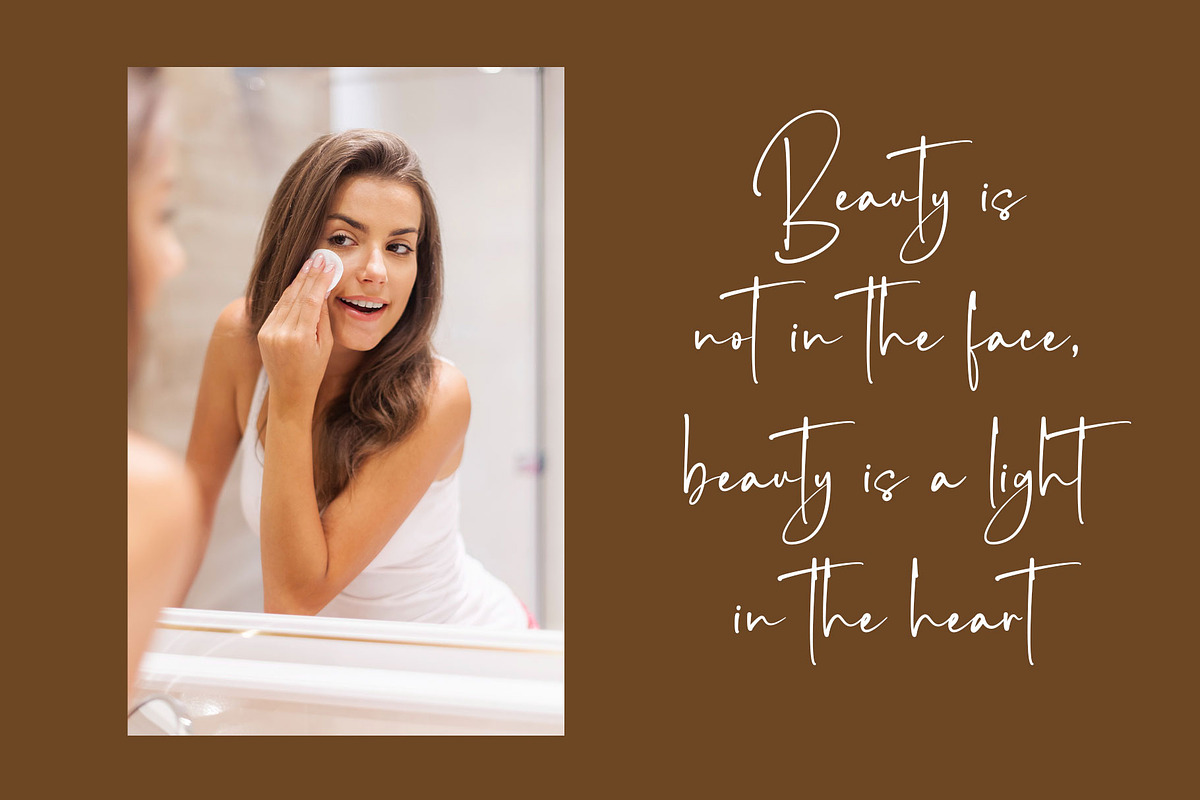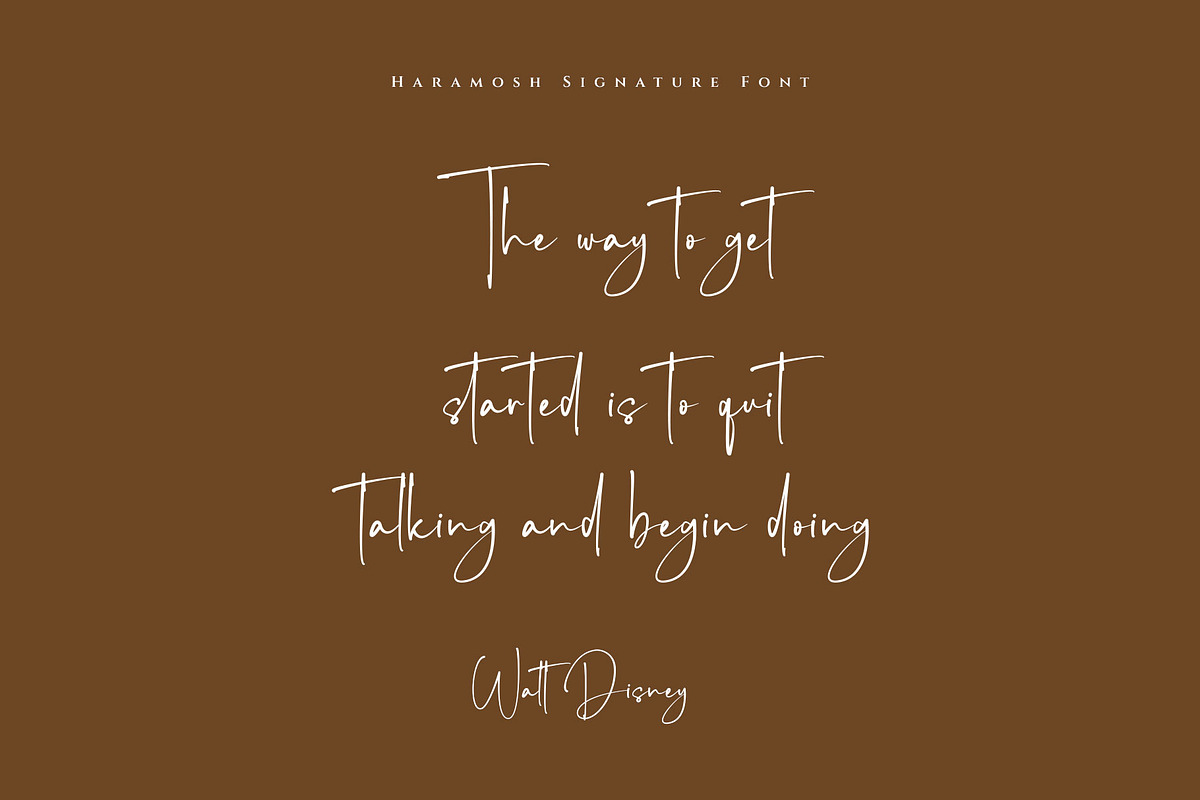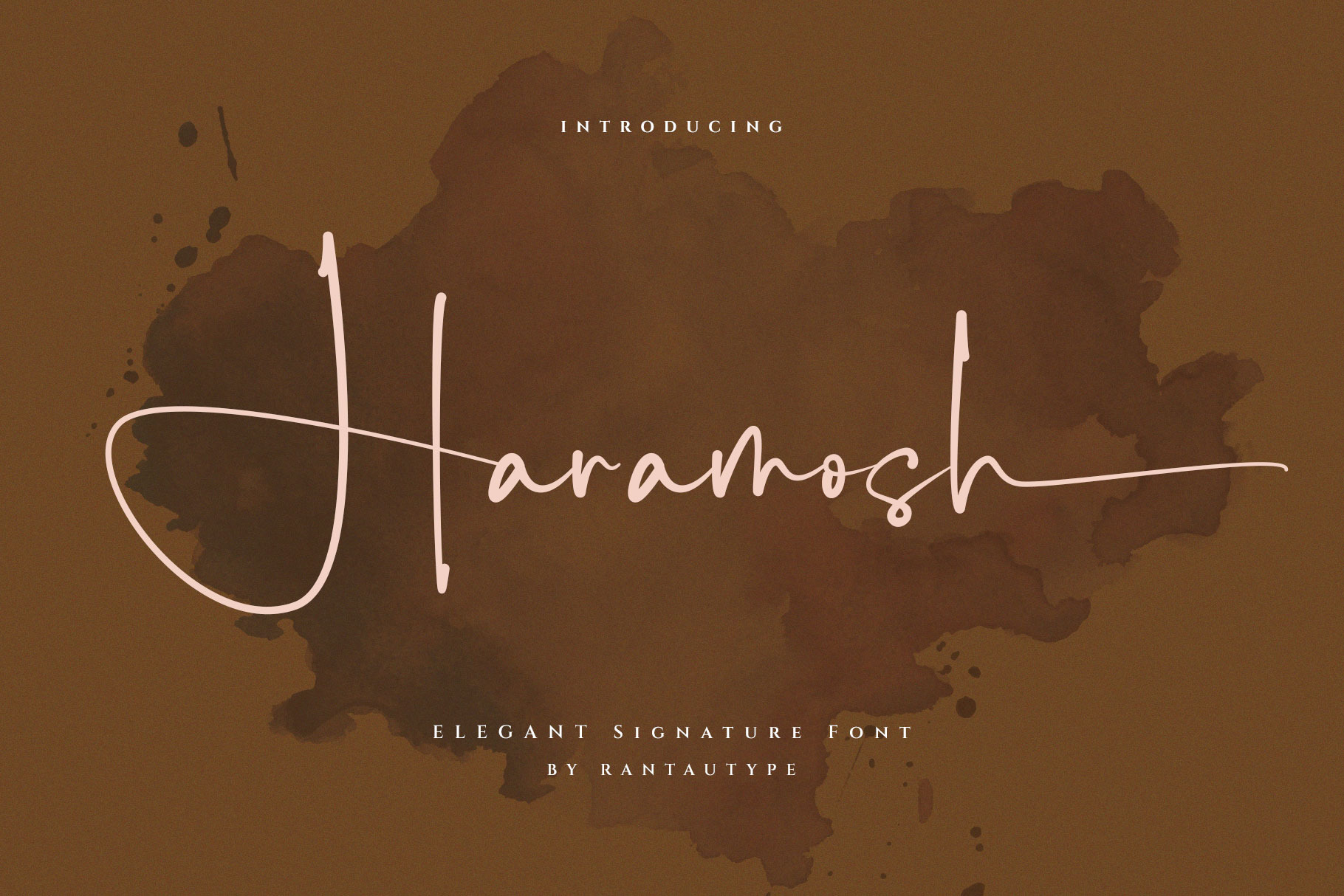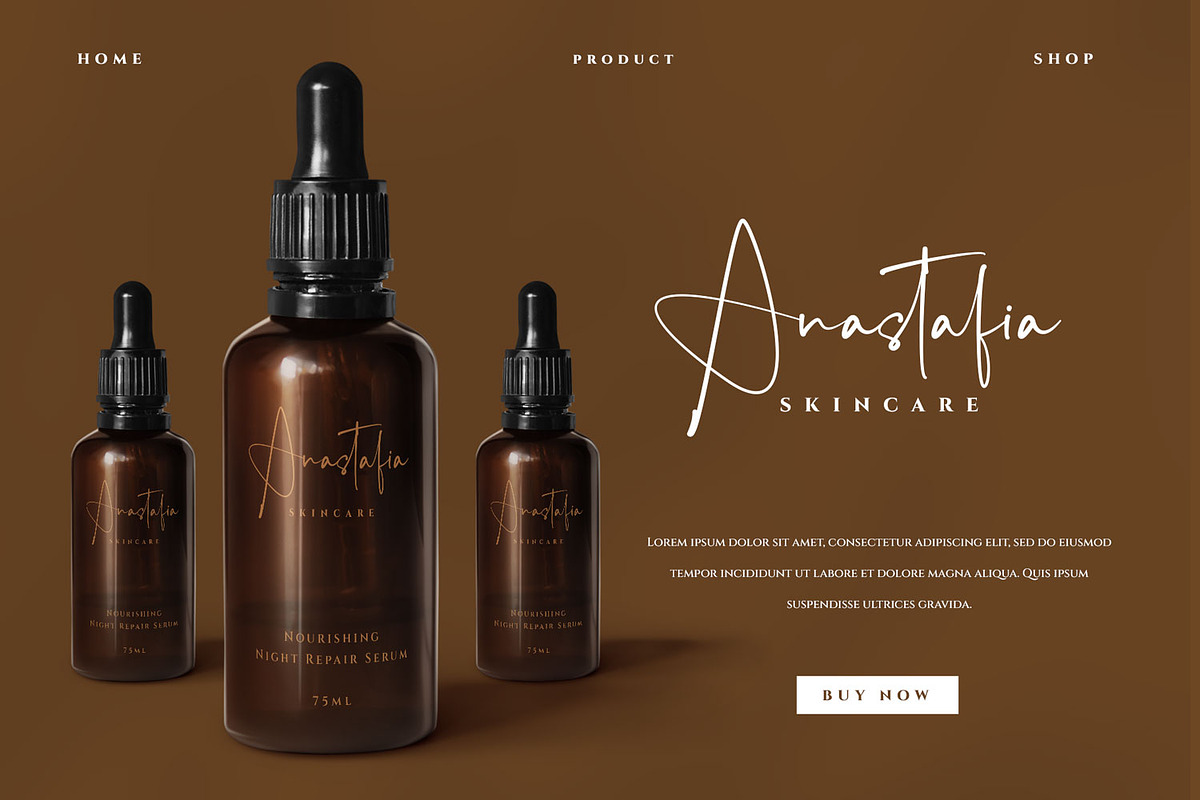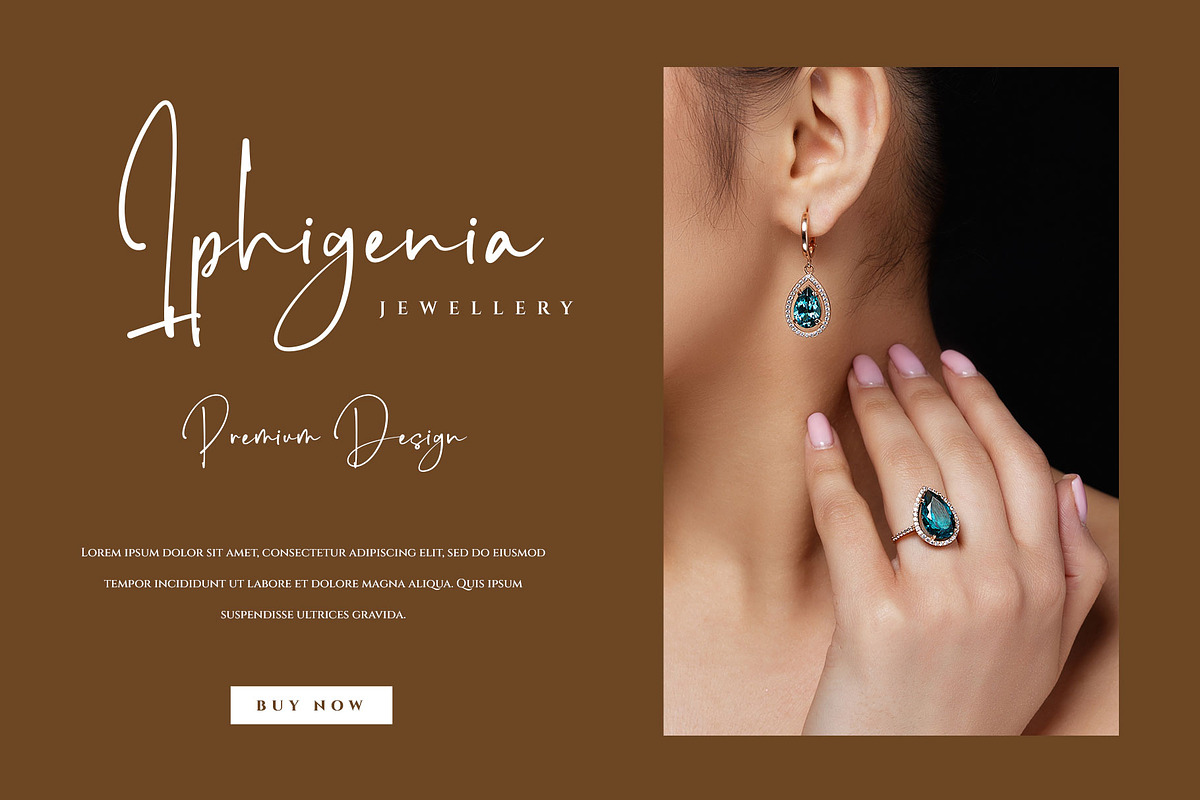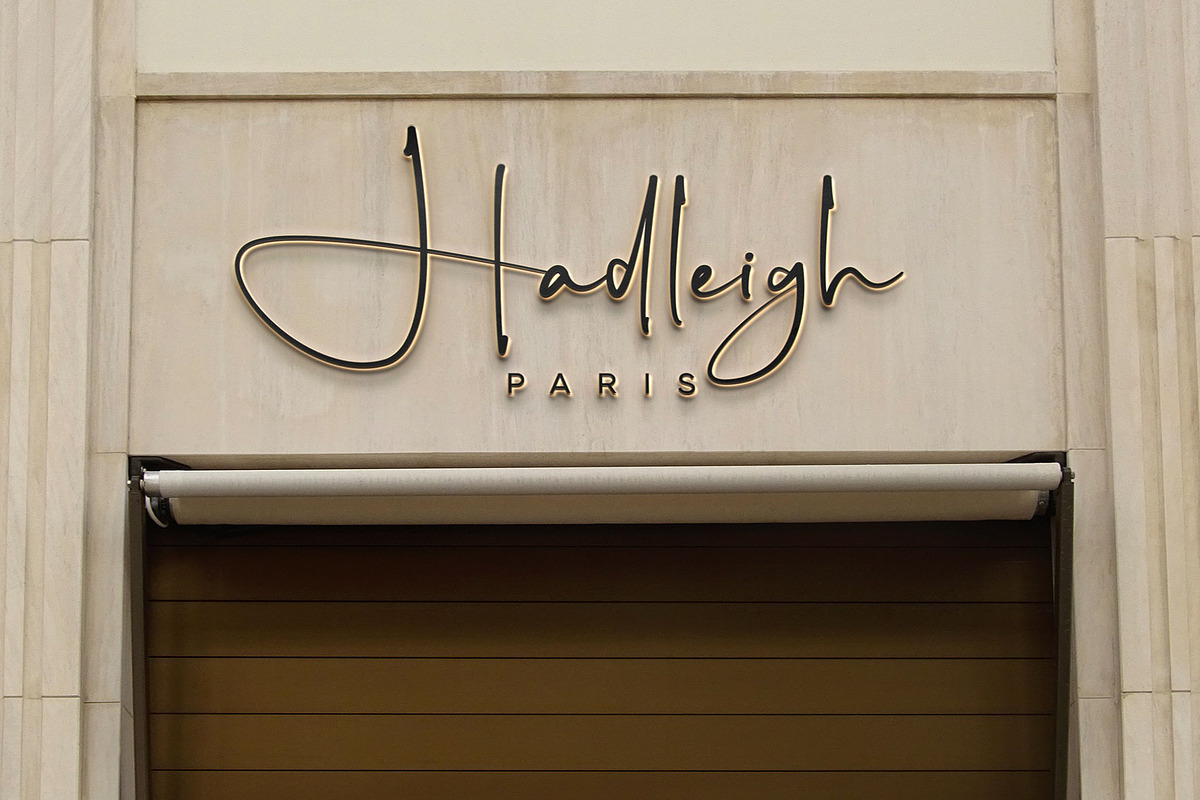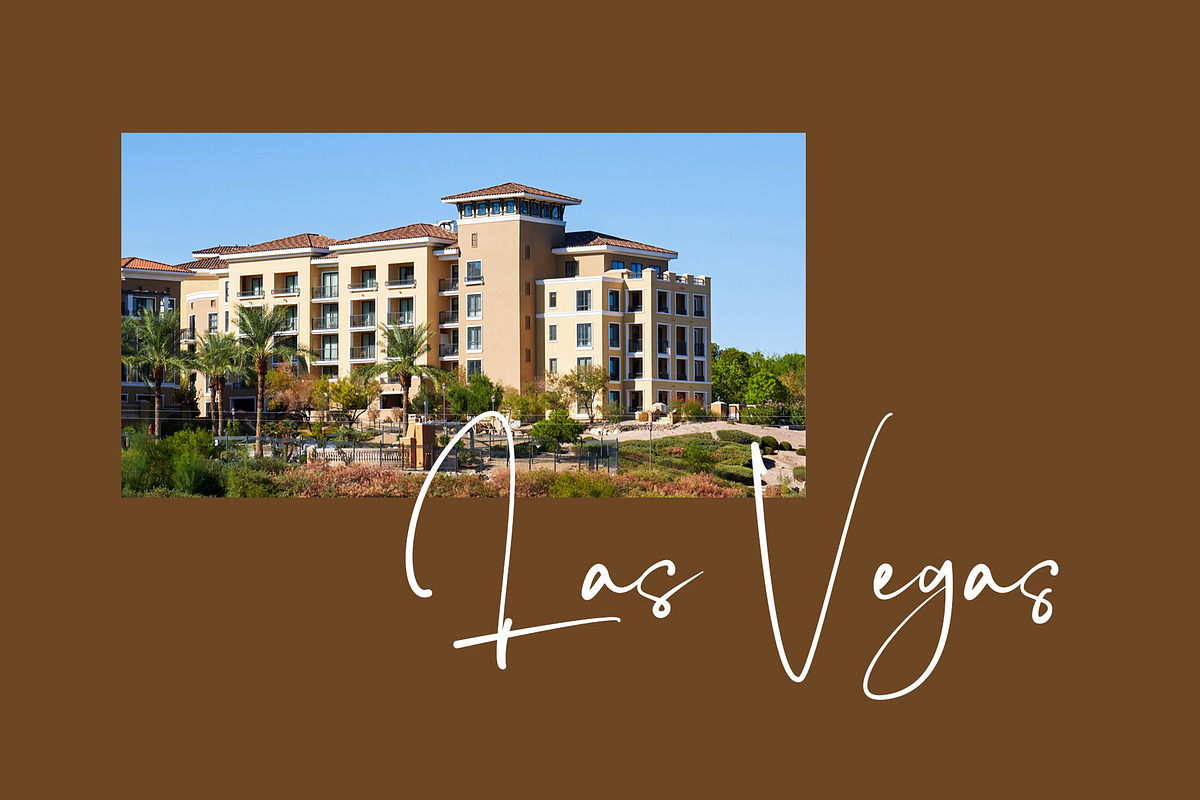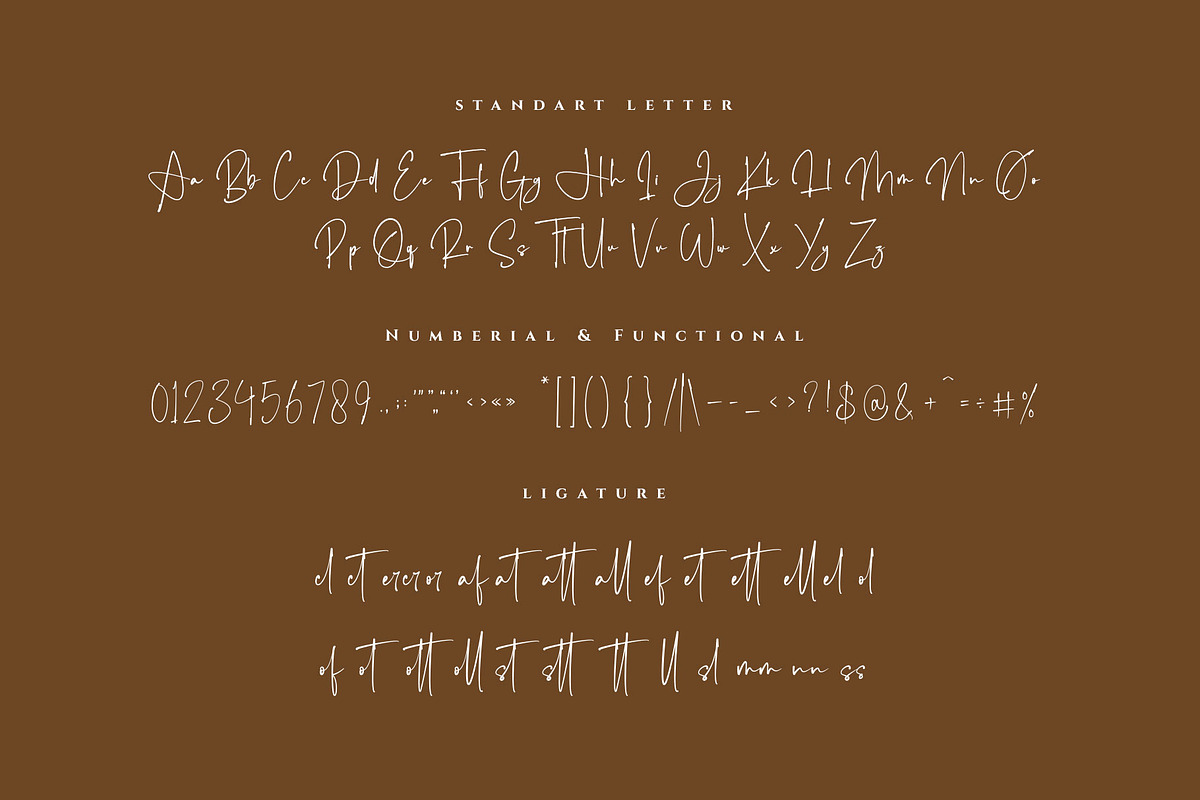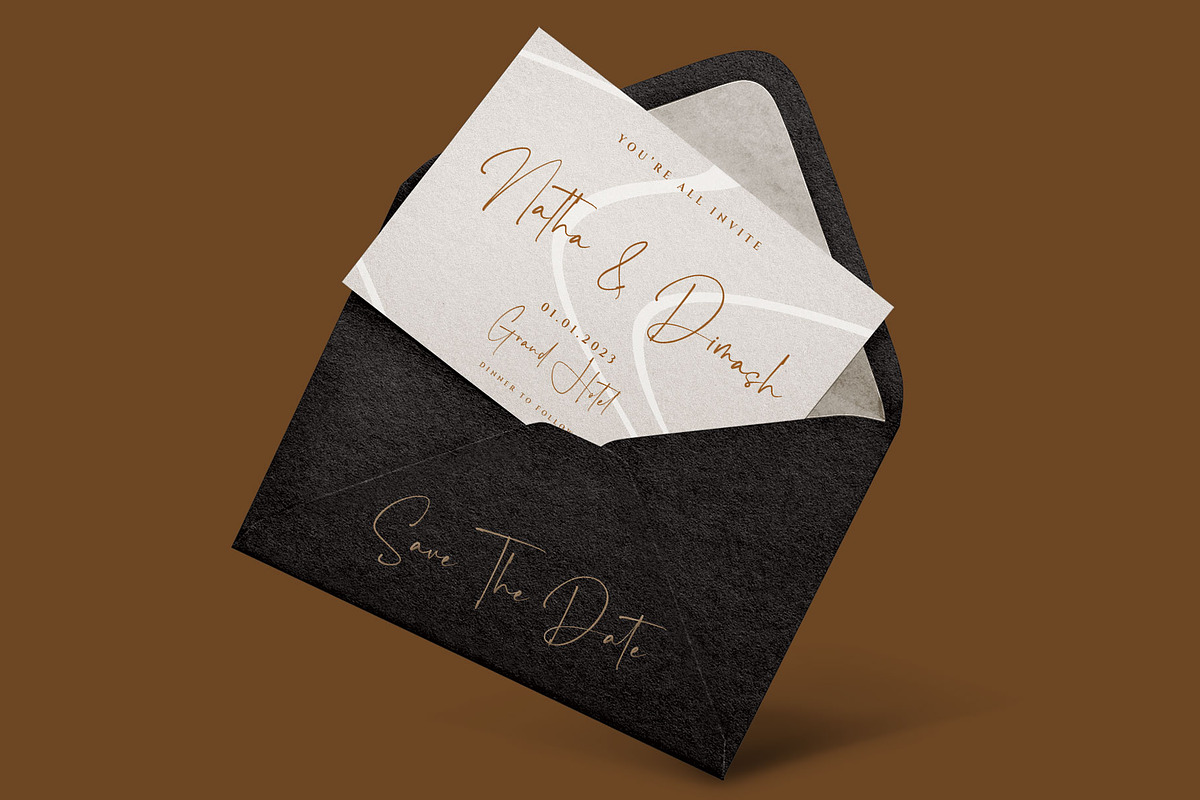
Haramosh - Elegant Signature Font
Hi Ladies and Gentleman ! Proudly present another signature font “Haramosh”. This font is elegant style which can be interpreted professional. we keep this font looks elegant, luxury, premium, modern, readable, stylish, feminine, girly, catchy and easy to use also included with more swash. Haramosh is the great choice for watermark on photography, signature or signature logo design, quotes, album cover, magazine, business card and many other design project. Haramosh here to make your work to high level!!!
- Standar character A-Z and a-z
- ligature